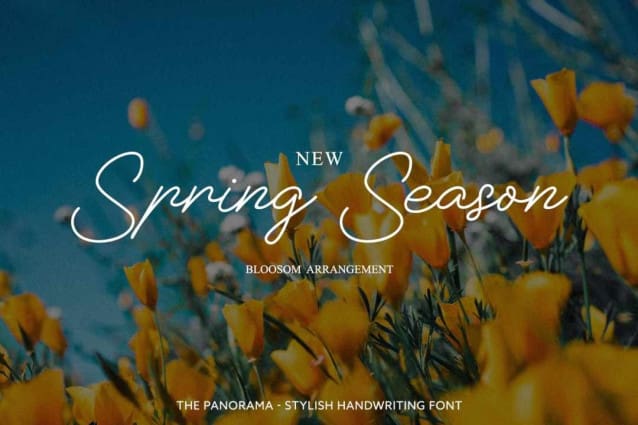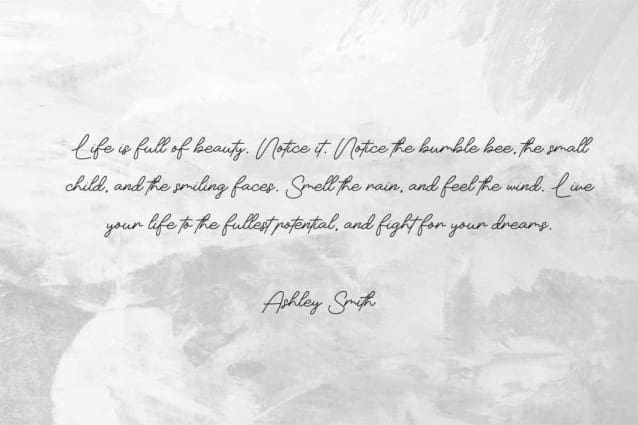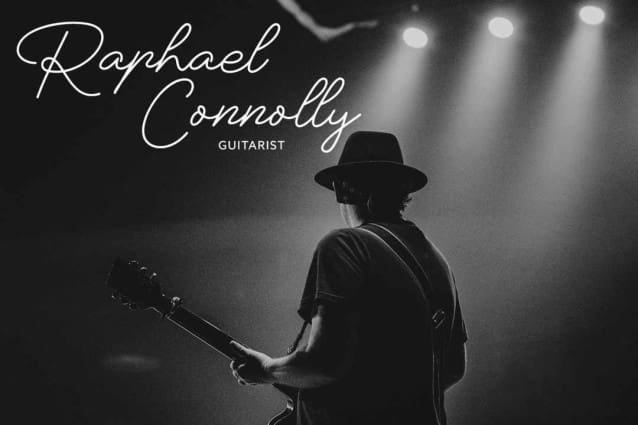
The Panorama Font
The Panorama Font, is a handwritten script font that offers an elegant and personal touch to every character. Inspired by handcrafted strokes, this font presents a natural handwritten feel that is both warm and inviting. Each letter showcases uniqueness in every curve and stroke, creating a relaxed yet refined atmosphere. Ideal for design projects seeking a personal touch, such as wedding invitations, greeting cards, brand logos, and other design elements requiring a warm and elegant ambiance.